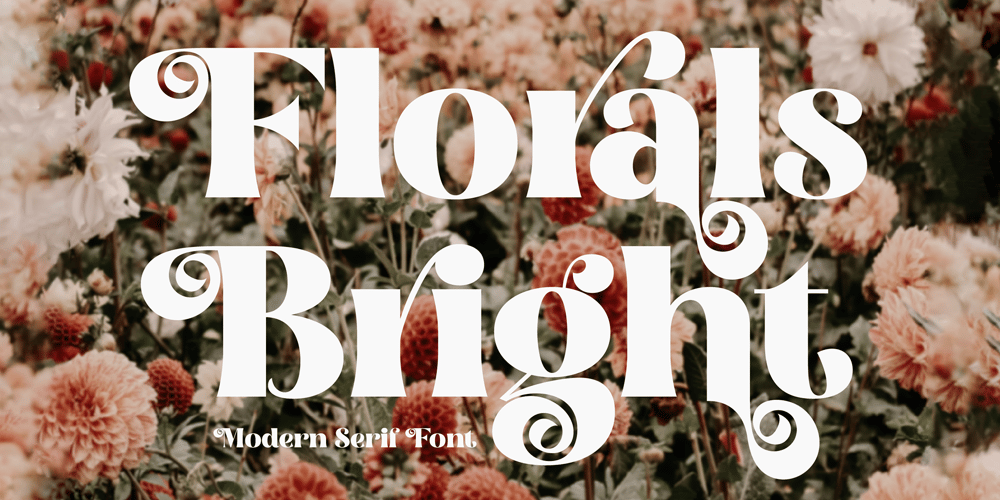
Florals Bright
Florals Bright Font Family was designed by Heru Utama Putra and published by Letterena Studios. Florals Bright contains 2 styles and family package options. Florals Bright is a chic and trendy looking serif font. It is PUA encoded which means you can access all of the glyphs and swashes with ease! Add it confidently to your projects, and you will love the results.